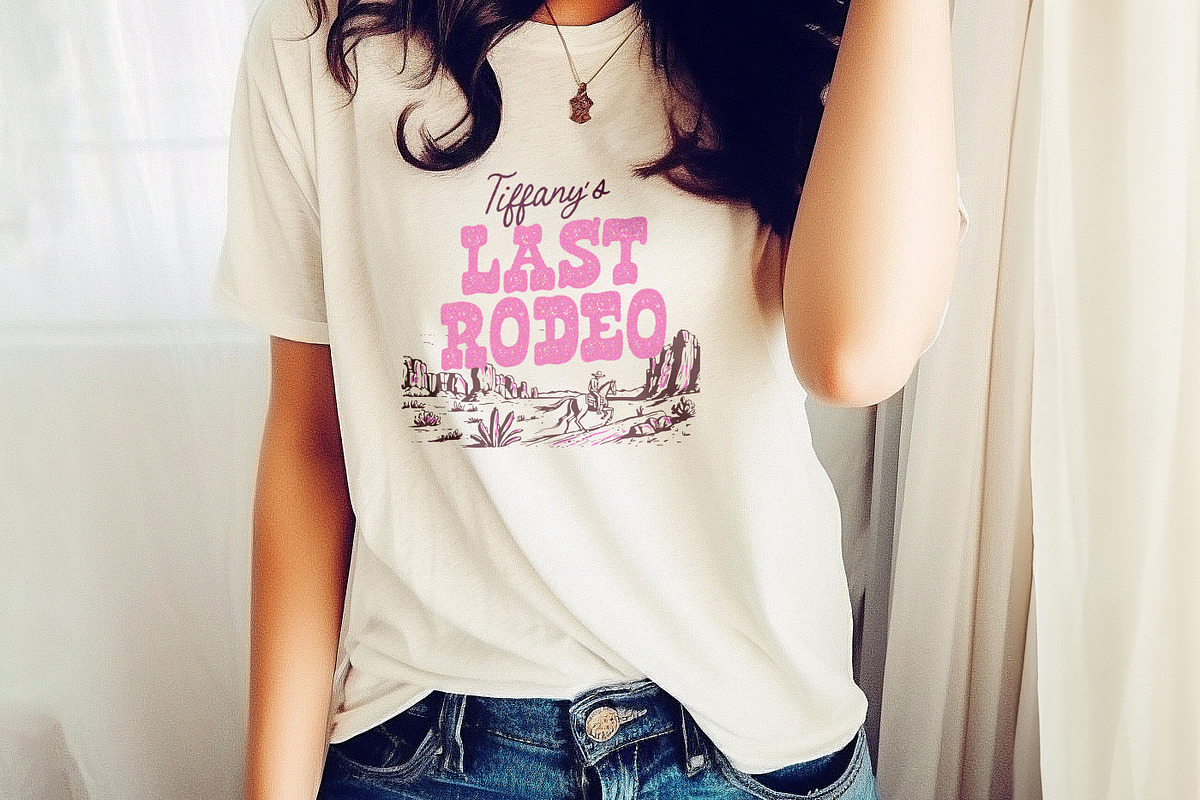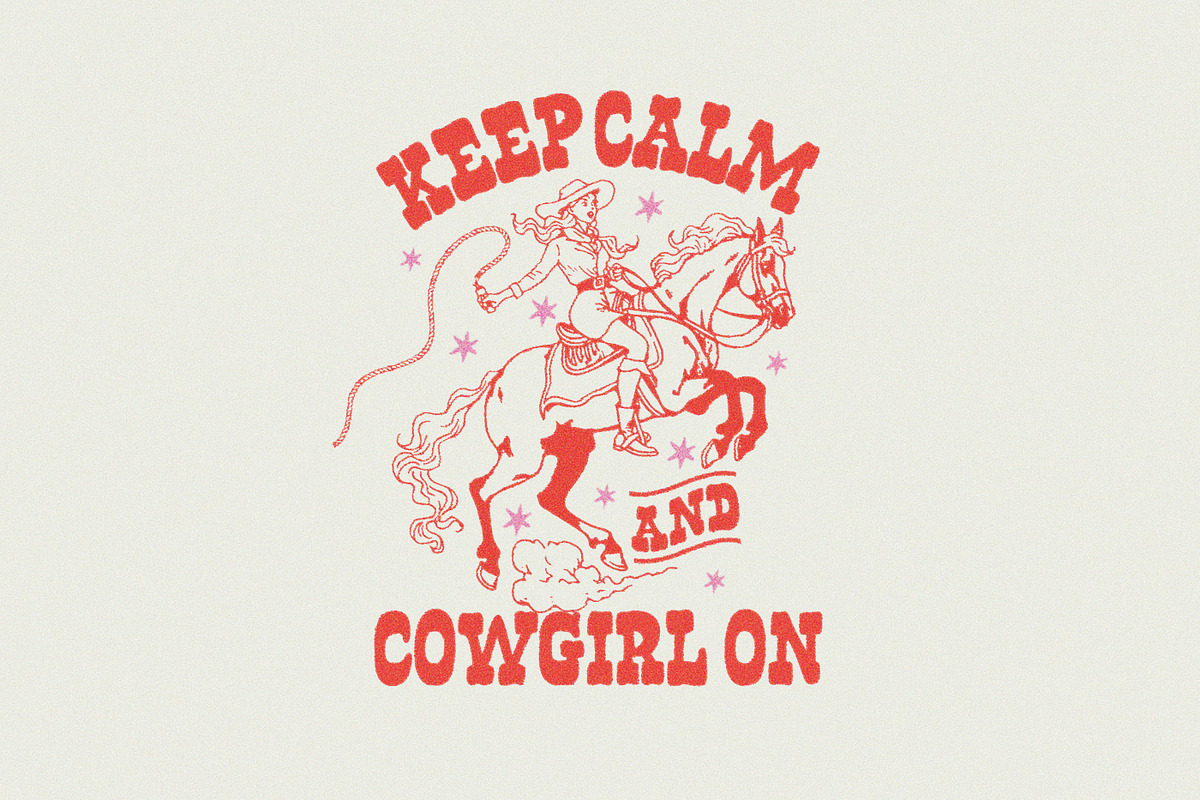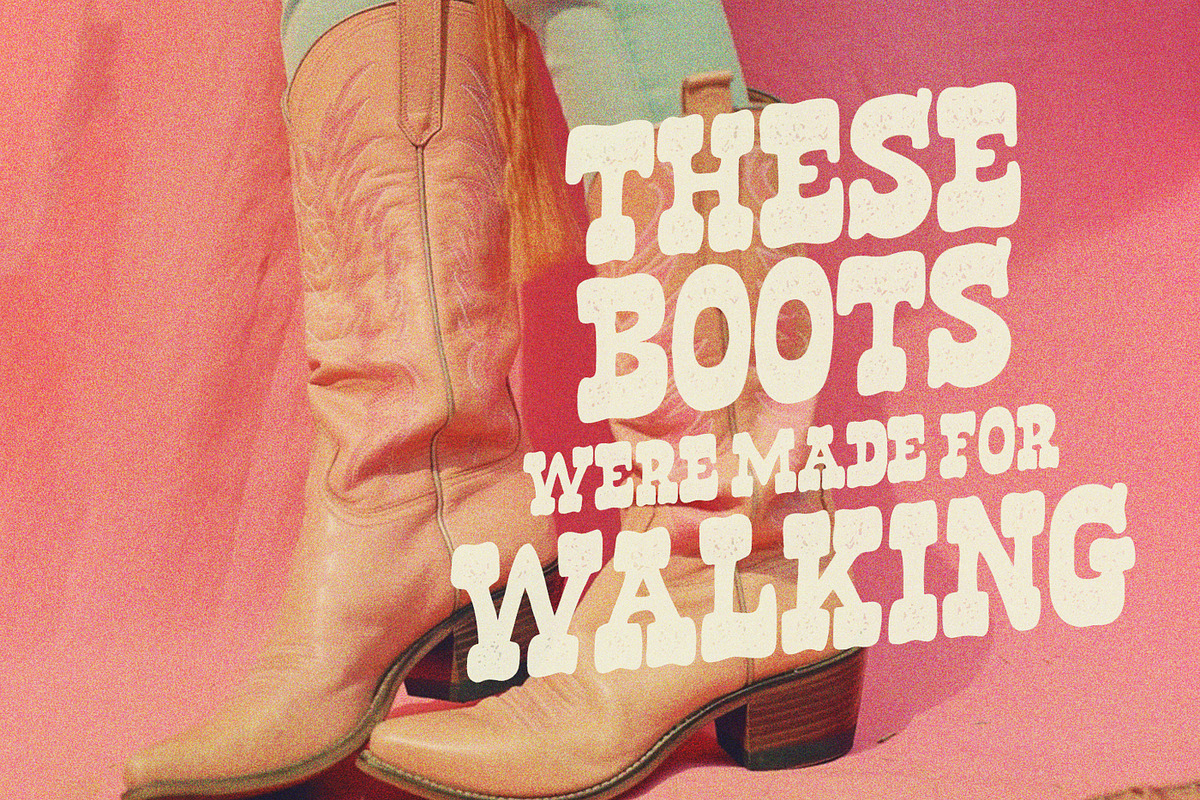
Say hello to Bronco Belle!! A bold and playful, retro-vintage western typeface thats rugged, rustic and ready for some fun. Available in Regular and Wide, the typeface has 4 variants : Regular, Rough-edged, Grungy and Grungy with rough edges.
Regular : Smooth edged original. Rough : A grainy textured edge – great for an ink bleed look on paper. Grunge : A grungy stamped ink look. Rough Grunge : A combo of the above two.